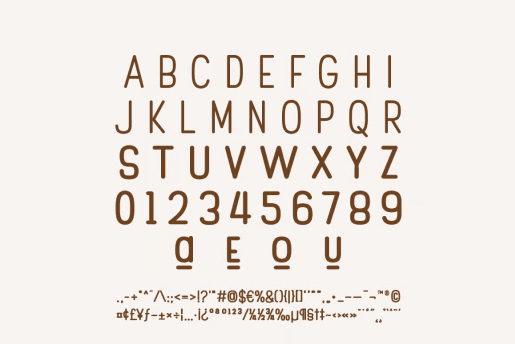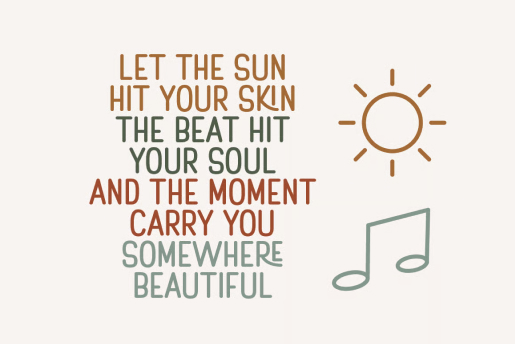
Rockie Sketch Font
Rockie Sketch is a playful upright display font with a retro-modern vibe, available in Skinny and Bold weights. Ideal for logos, posters, packaging, and creative branding projects. It features 26 unique ligatures that add natural rhythm and a fun flow to your text. Perfect for designs needing a lively and dynamic touch.